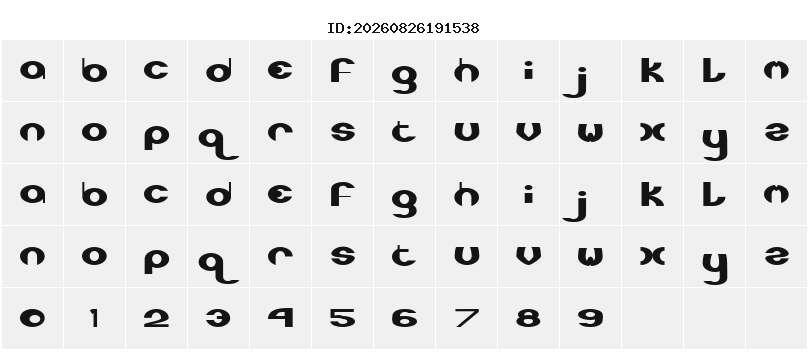
XLR8 Preview
• Font Name: XLR8
• Full Font Name: XLR8
• PostScript Name: XLR8
About XLR8.ttf
XLR8.ttf is a modern, elegant sans-serif font designed for ultimate readability and visual harmony. Perfect for branding, headlines, web design, and print materials.